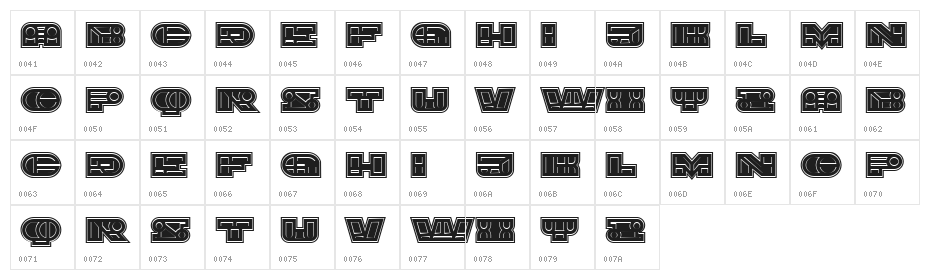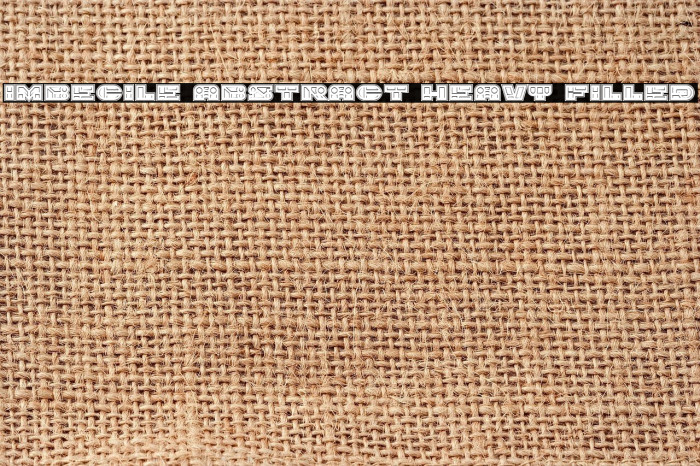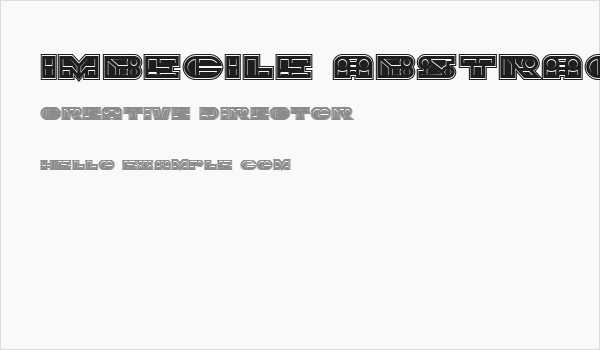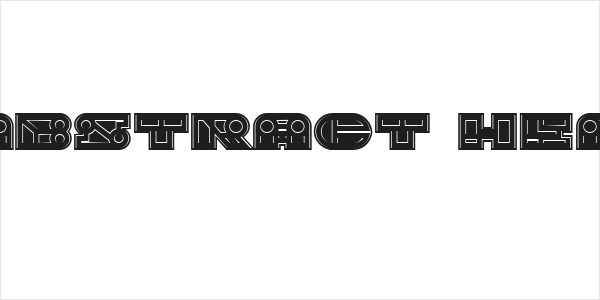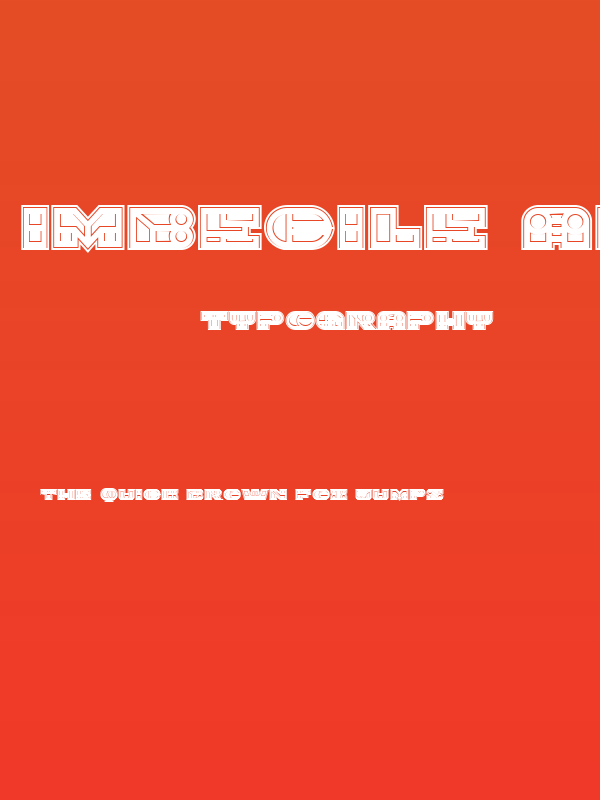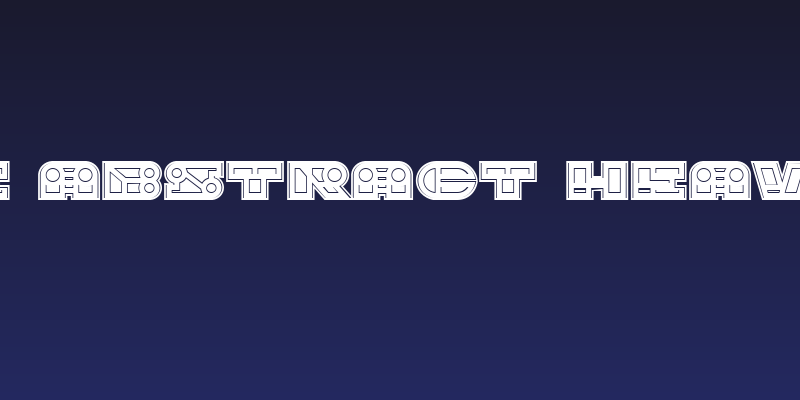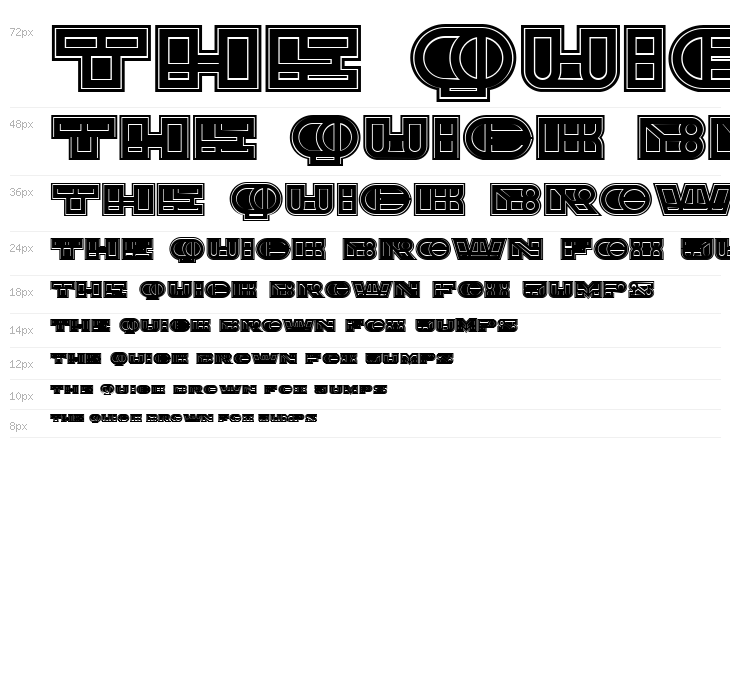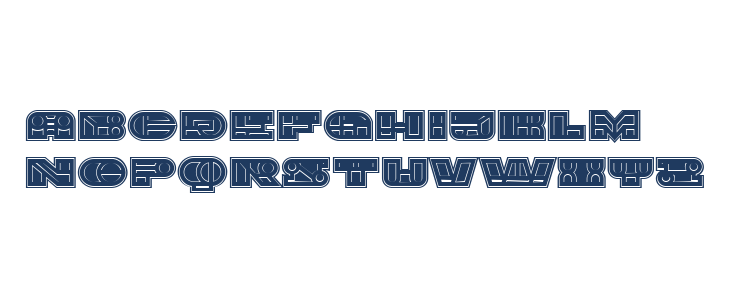
Imbecile Abstract Heavy Filled Font
This font features a bold, abstract design with heavy, filled characters. Each letter is uniquely crafted with intricate patterns and geometric shapes, creating a striking visual impact. The uppercase letters are particularly distinctive, with a strong presence and artistic flair. The font's style is both modern and decorative, making it suitable for projects that require a bold statement. The characters are evenly spaced, ensuring readability despite their complex design. This font is ideal for creative projects where a unique and eye-catching typeface is desired.
| Proposed Projects | Ideal for posters, album covers, branding, and any project needing a bold, artistic touch. |